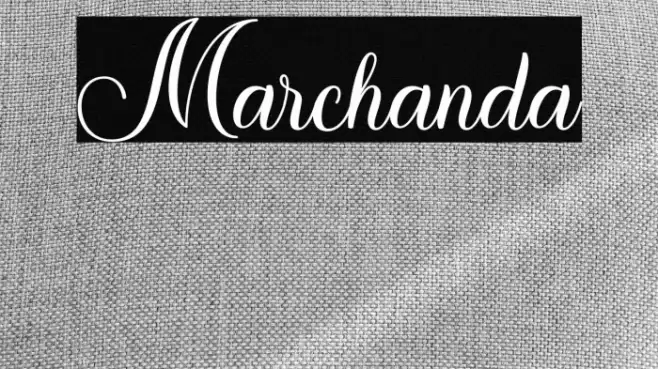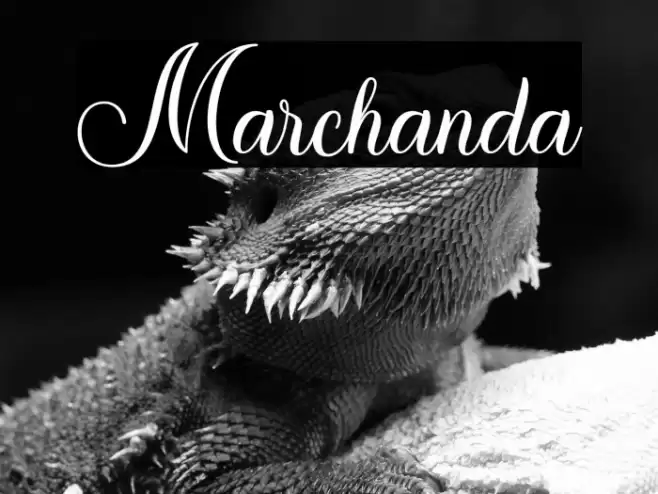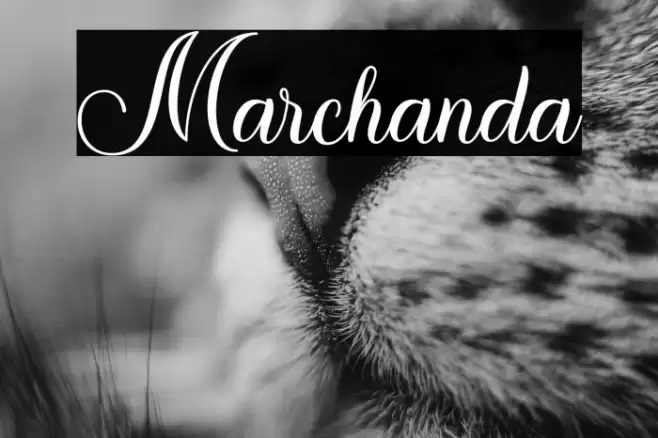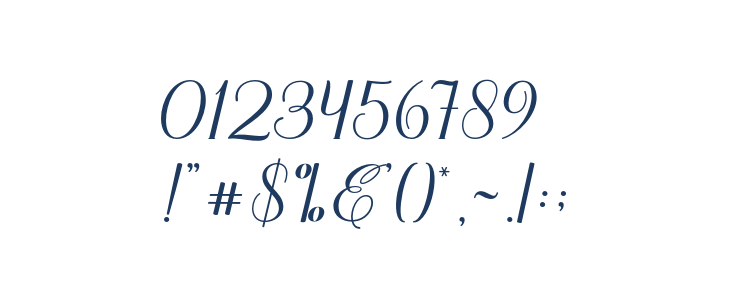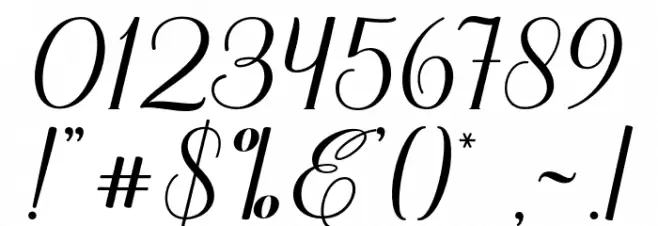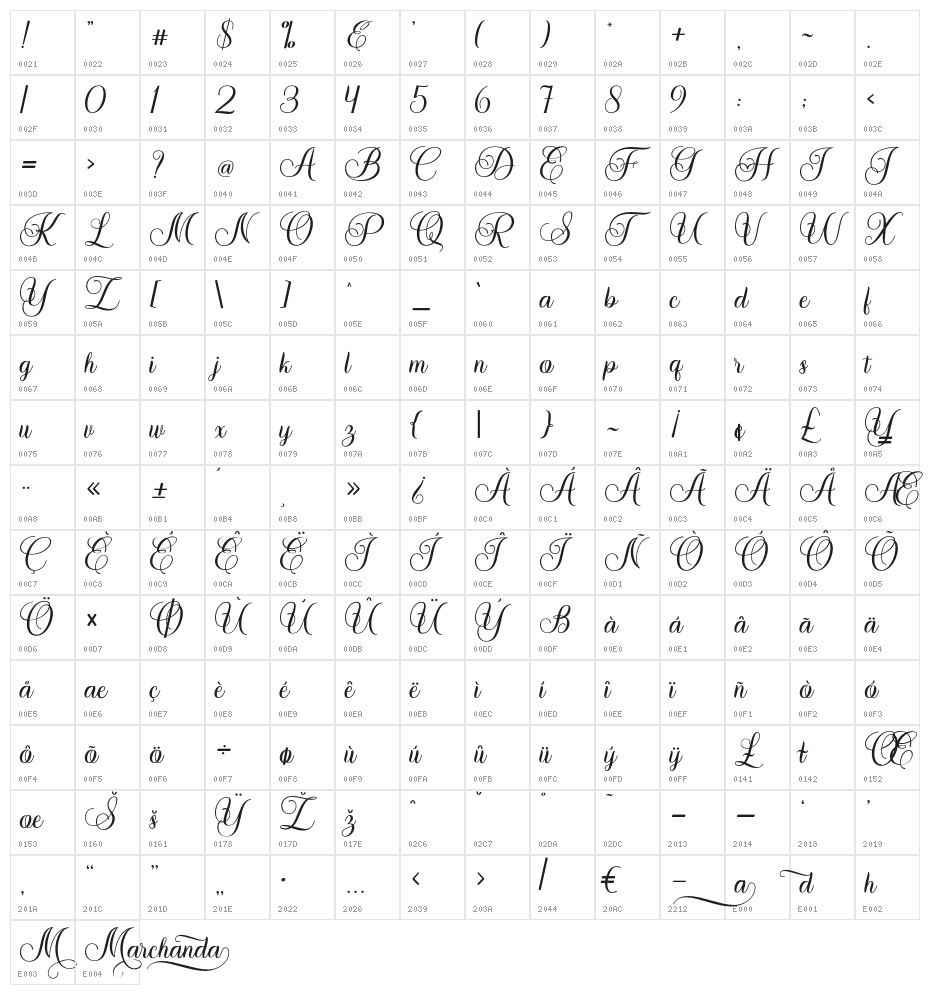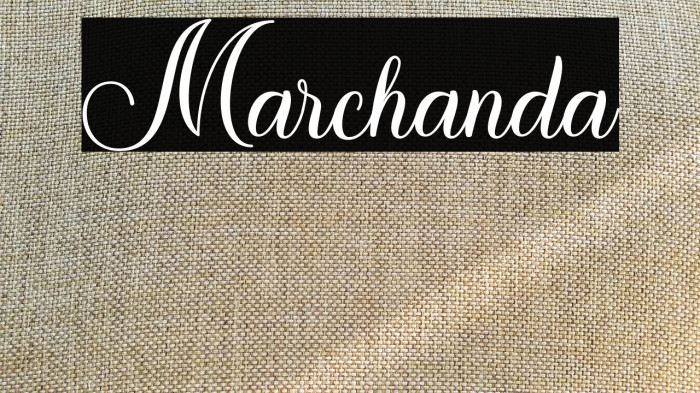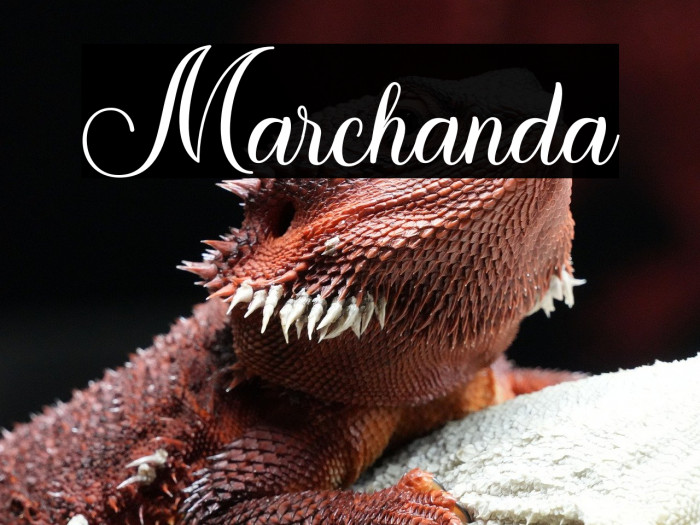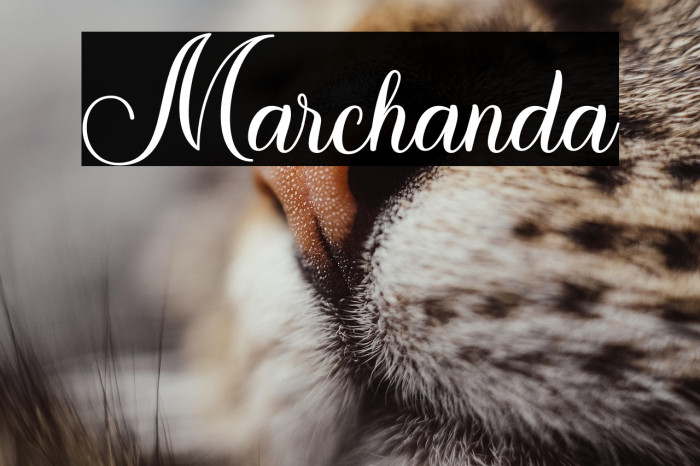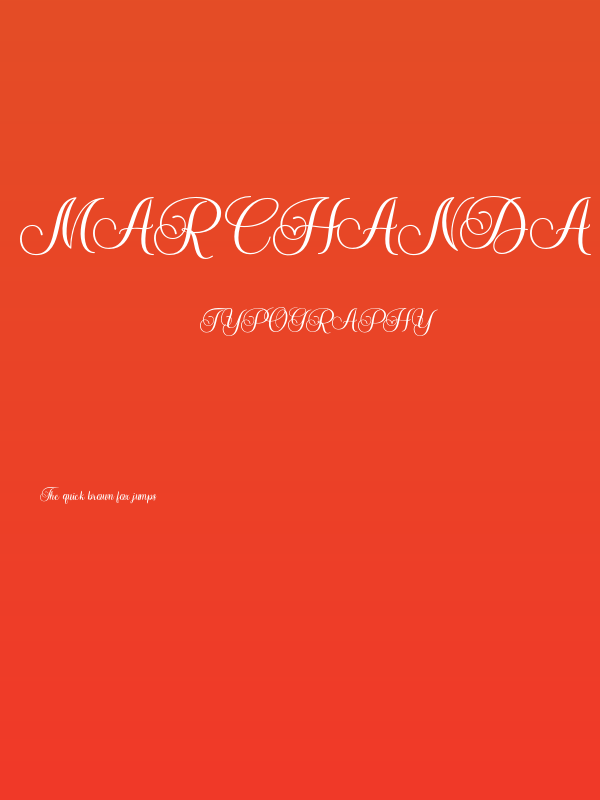
Marchanda Font
Marchanda Description
This elegant script font features a sophisticated and flowing design, with each letter gracefully connecting to the next. The uppercase letters are adorned with delicate swirls and flourishes, adding a touch of refinement and luxury. The lowercase letters maintain a smooth and consistent flow, enhancing readability while preserving the font's decorative nature. The numerals are stylishly crafted, maintaining the overall aesthetic of the font. Special characters are thoughtfully integrated, ensuring versatility in various design contexts. This font exudes a sense of elegance and charm, making it suitable for high-end branding and formal invitations.
An elegant script font with flowing, decorative characters and refined flourishes from Regular fonts.
- Proposed Projects: Ideal for wedding invitations, luxury branding, elegant logos, and formal event materials.
- Overall Style: Elegant, Decorative
- Use Case: Logos, Invitations, Branding